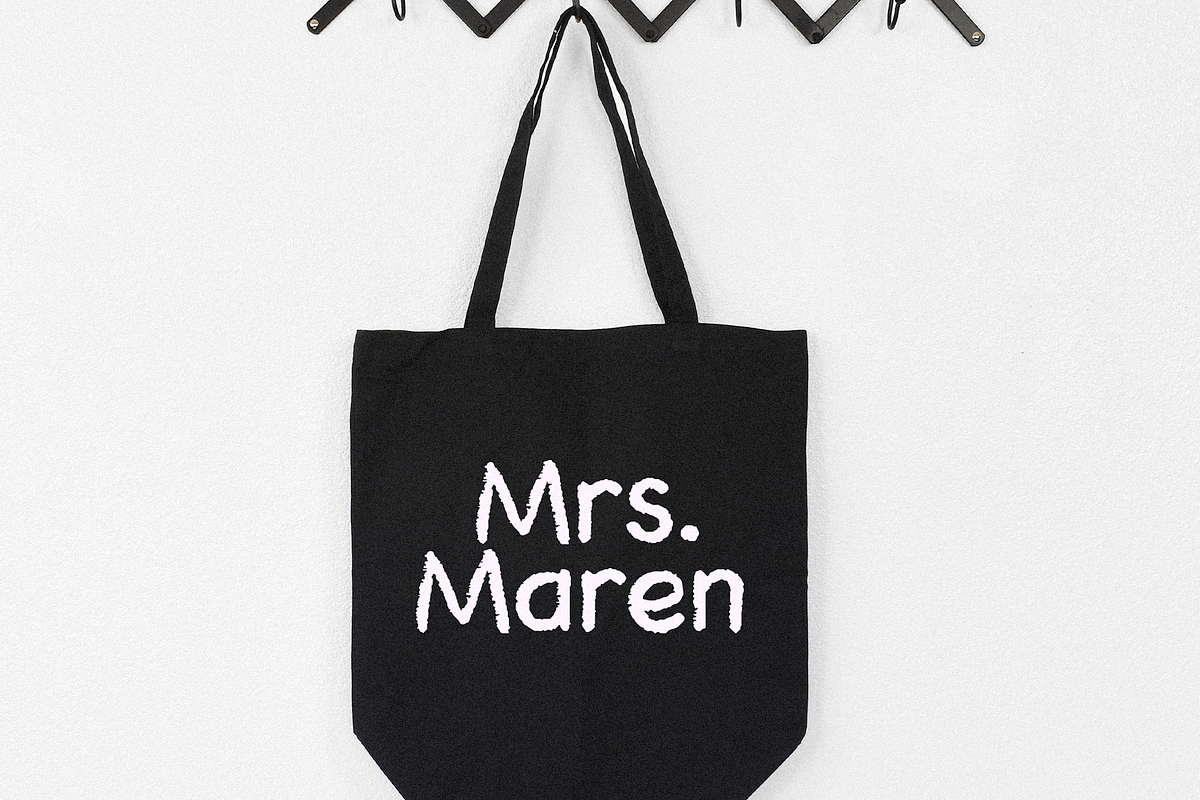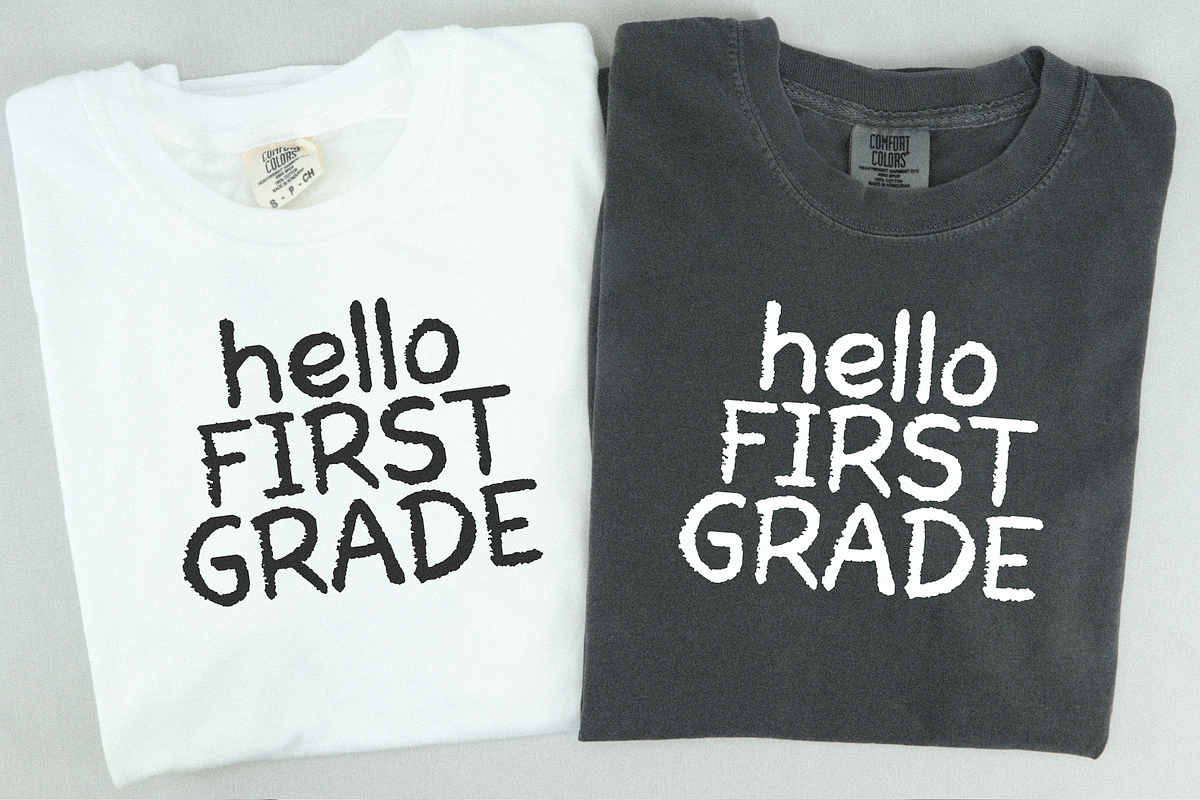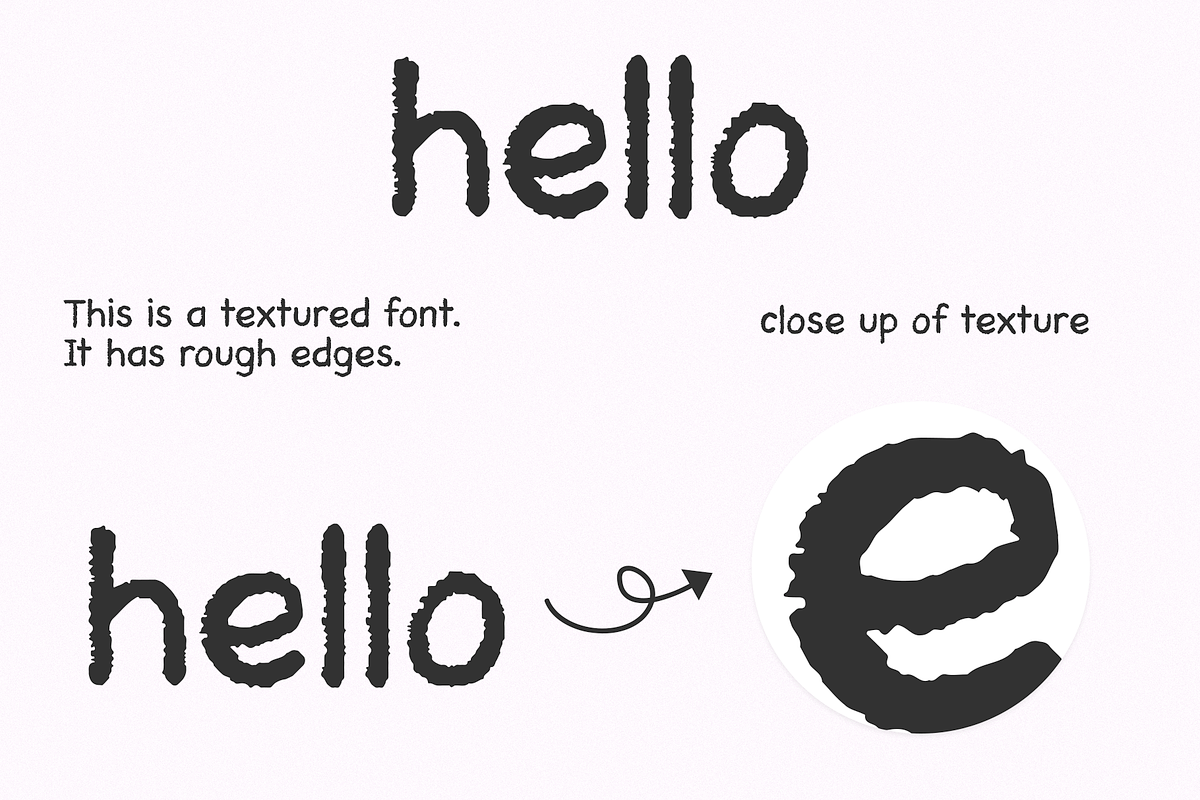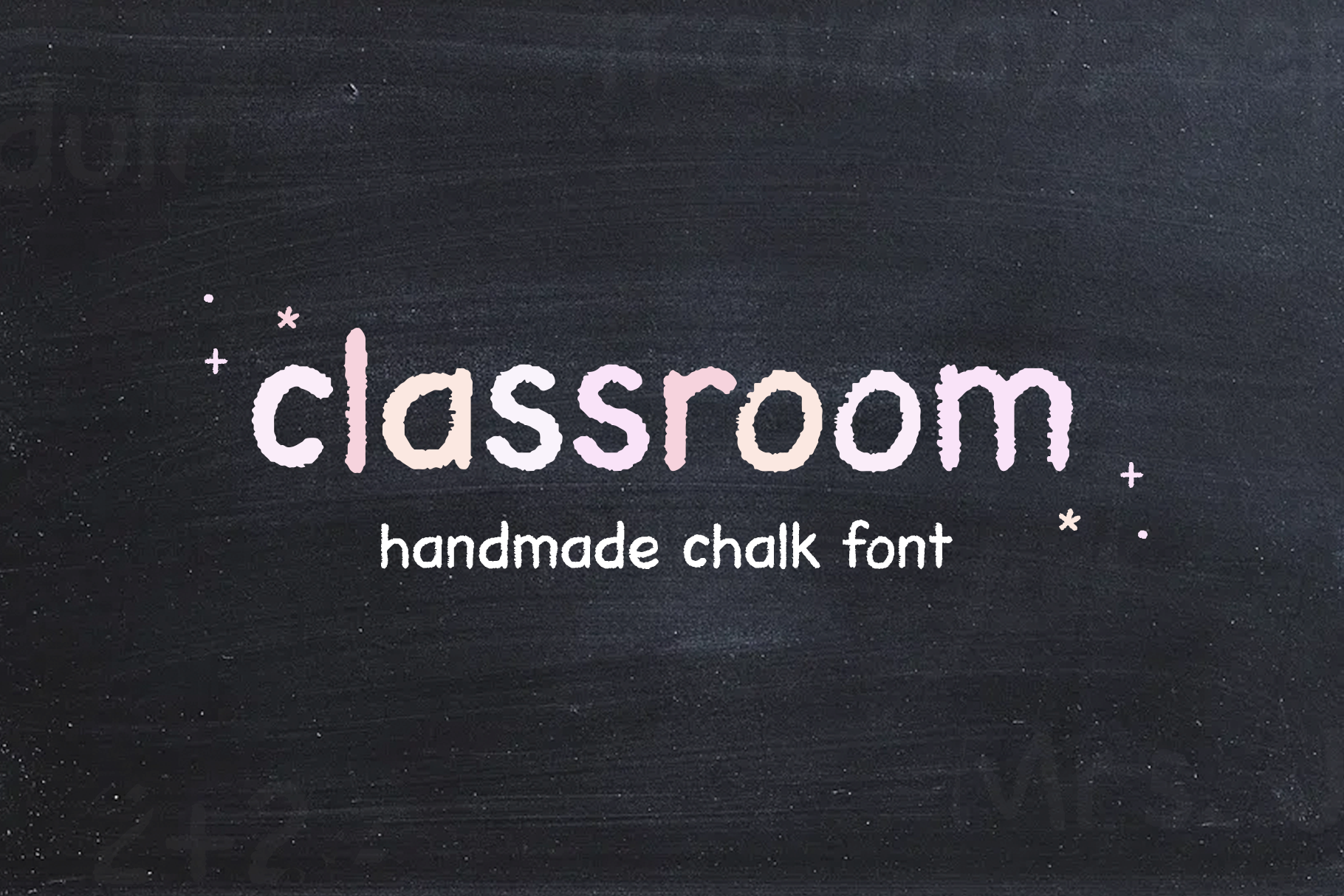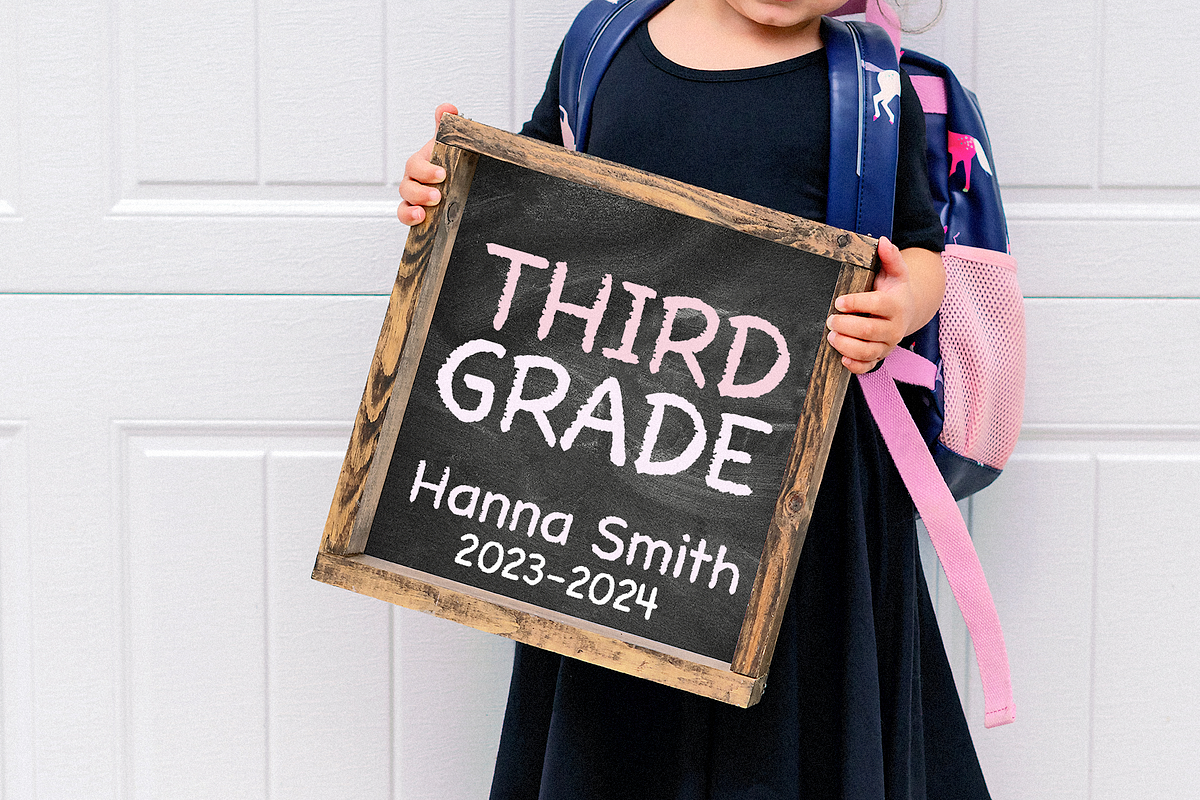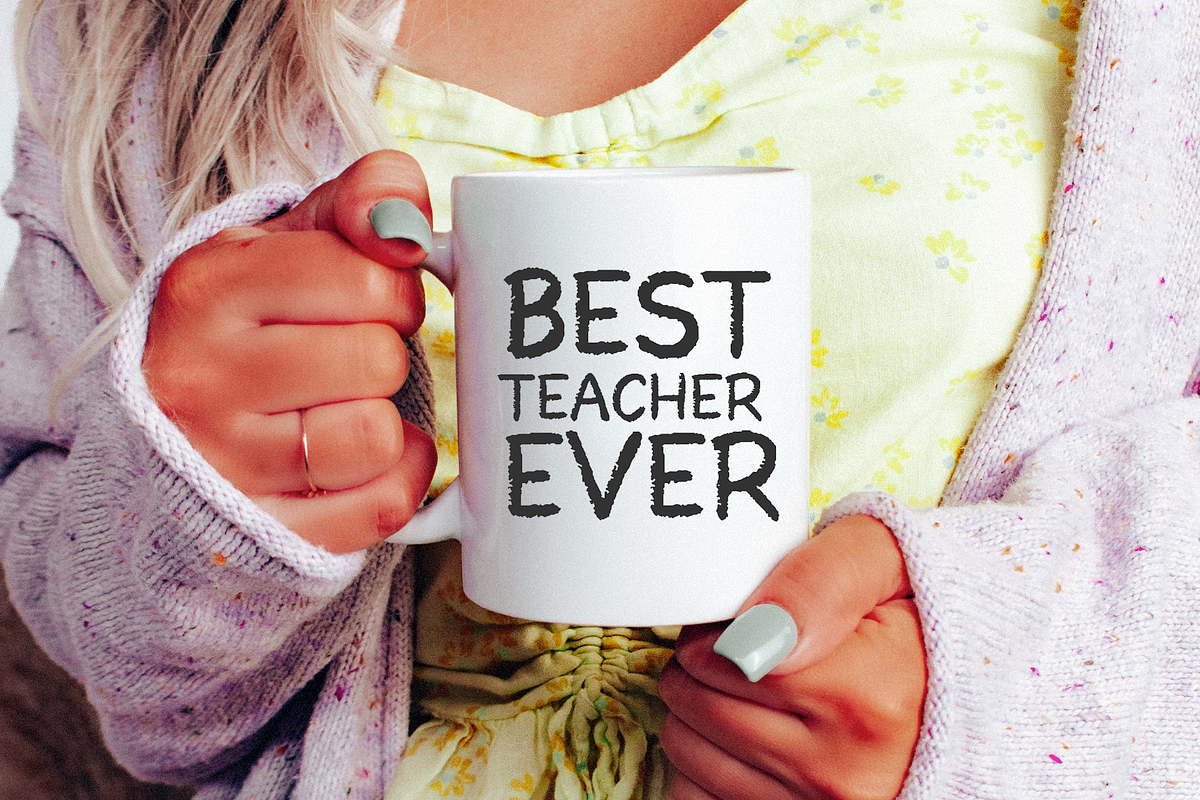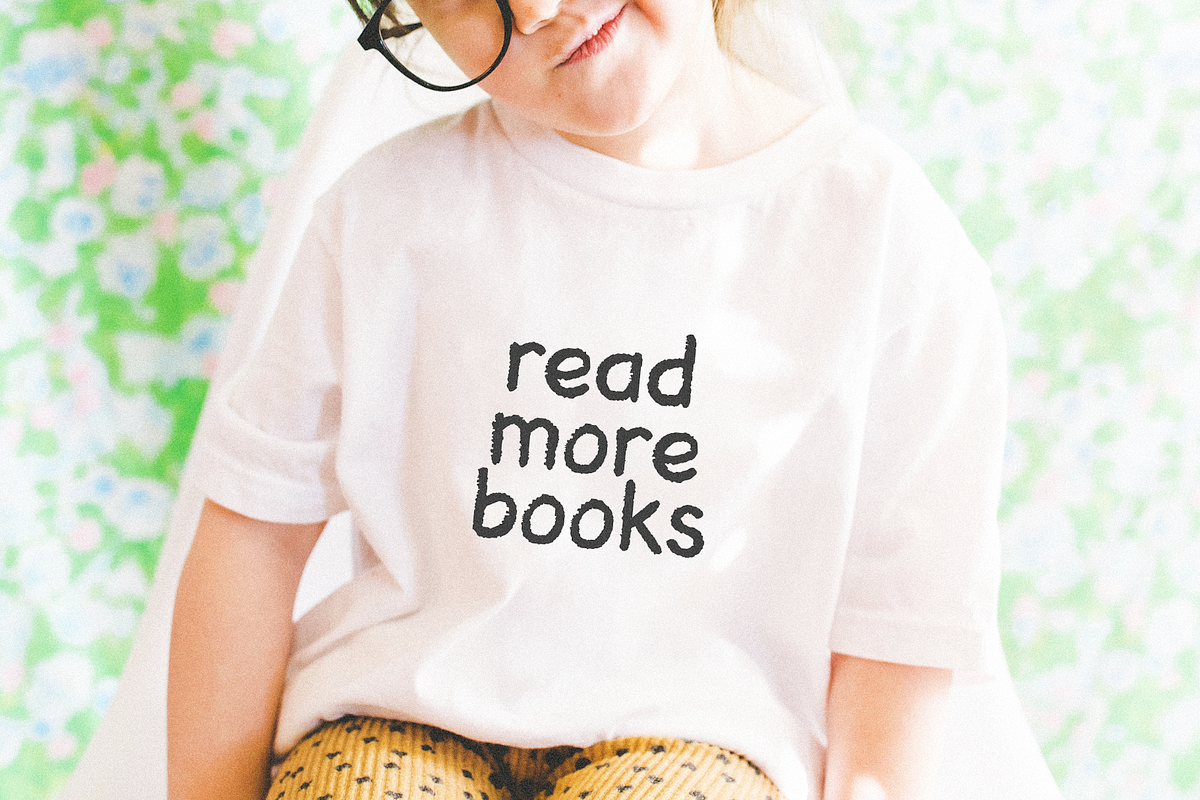
Classroom | Chalk Font
Classroom is a handmade chalk font.
This font is perfect for teachers, quotes, shirts, sublimation, mugs, cards, logos and more!
Note - this font has texture throughout to give the look of writing on a chalkboard